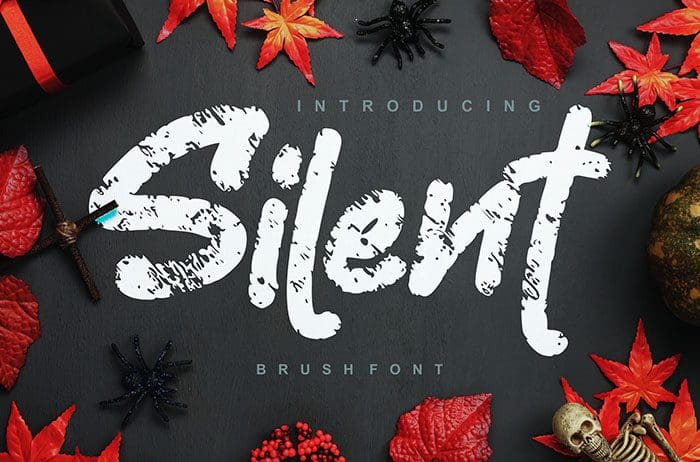
Silent Brush Font
Silent Brush Font is bold with a casual vibe. Silent used for various projects such as stationery invitations, social media, graphic design, and many more. Thanks to Vunira for sharing this font. Take a look at this portfolio for more of his stunning fonts.